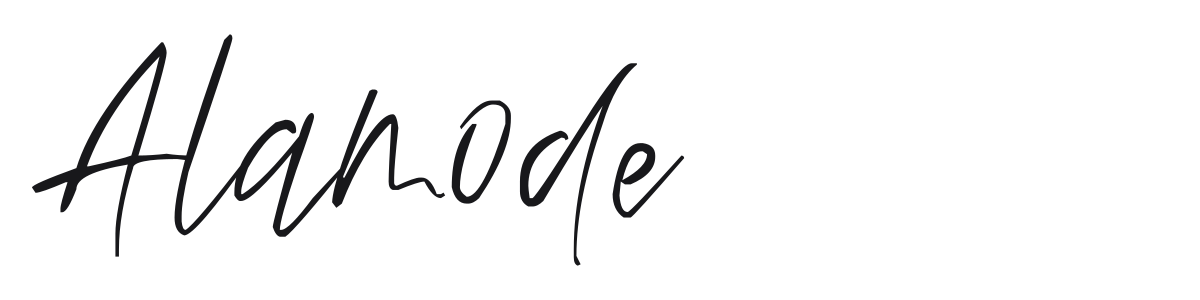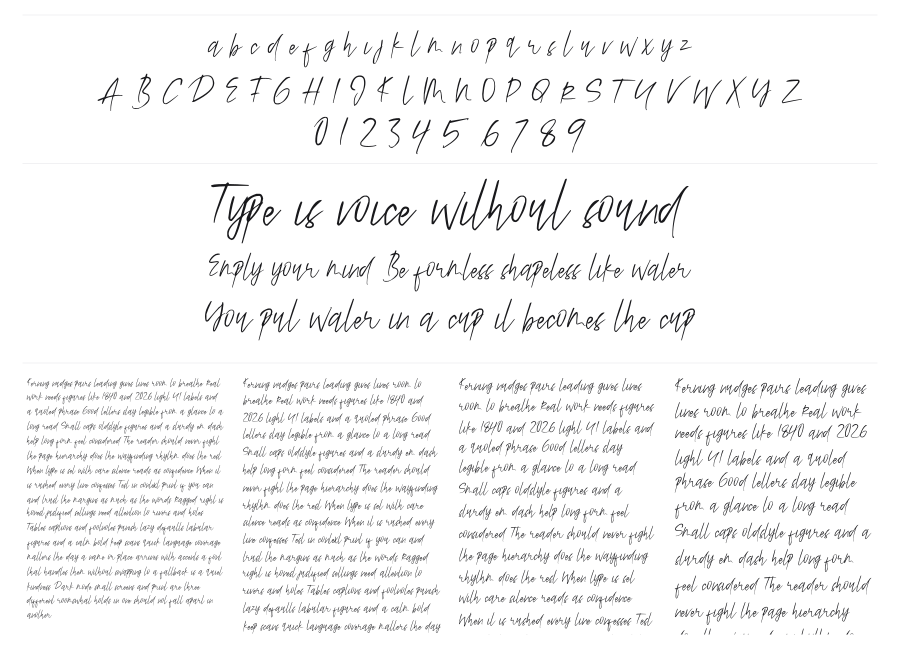
Alamode
Alamode is a flowing casual script with thin, connected strokes and generous ascenders that give it an airy, handwritten quality. The loose baseline and natural rhythm make it feel personal and approachable without being sloppy. It sits comfortably in branding, packaging, and social media graphics where a light, crafted touch is needed.